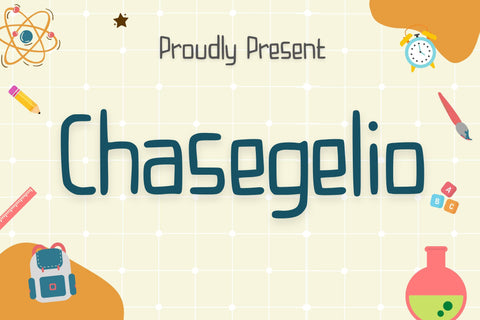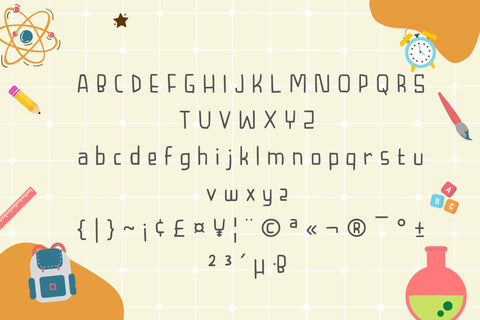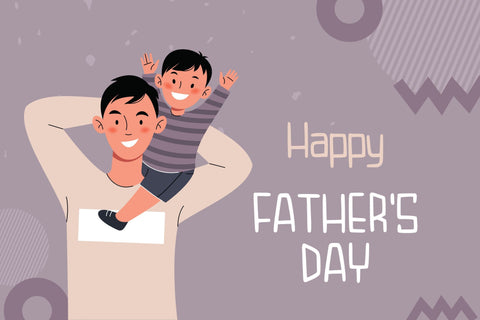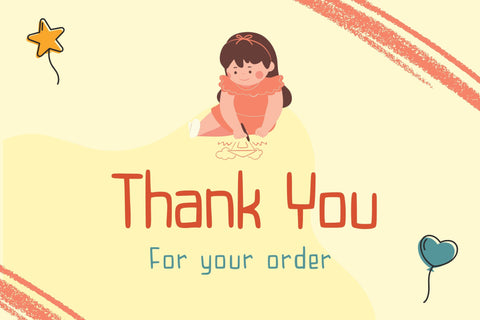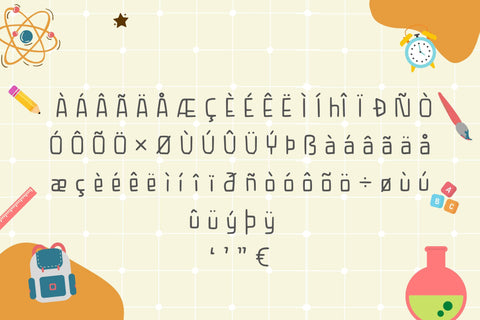
Chasegelio Handwriting Font
Chasegelio is a playful and friendly handwriting font. You can use it in various projects such as greeting cards, invitations, stickers, posts, decorations, and much more!